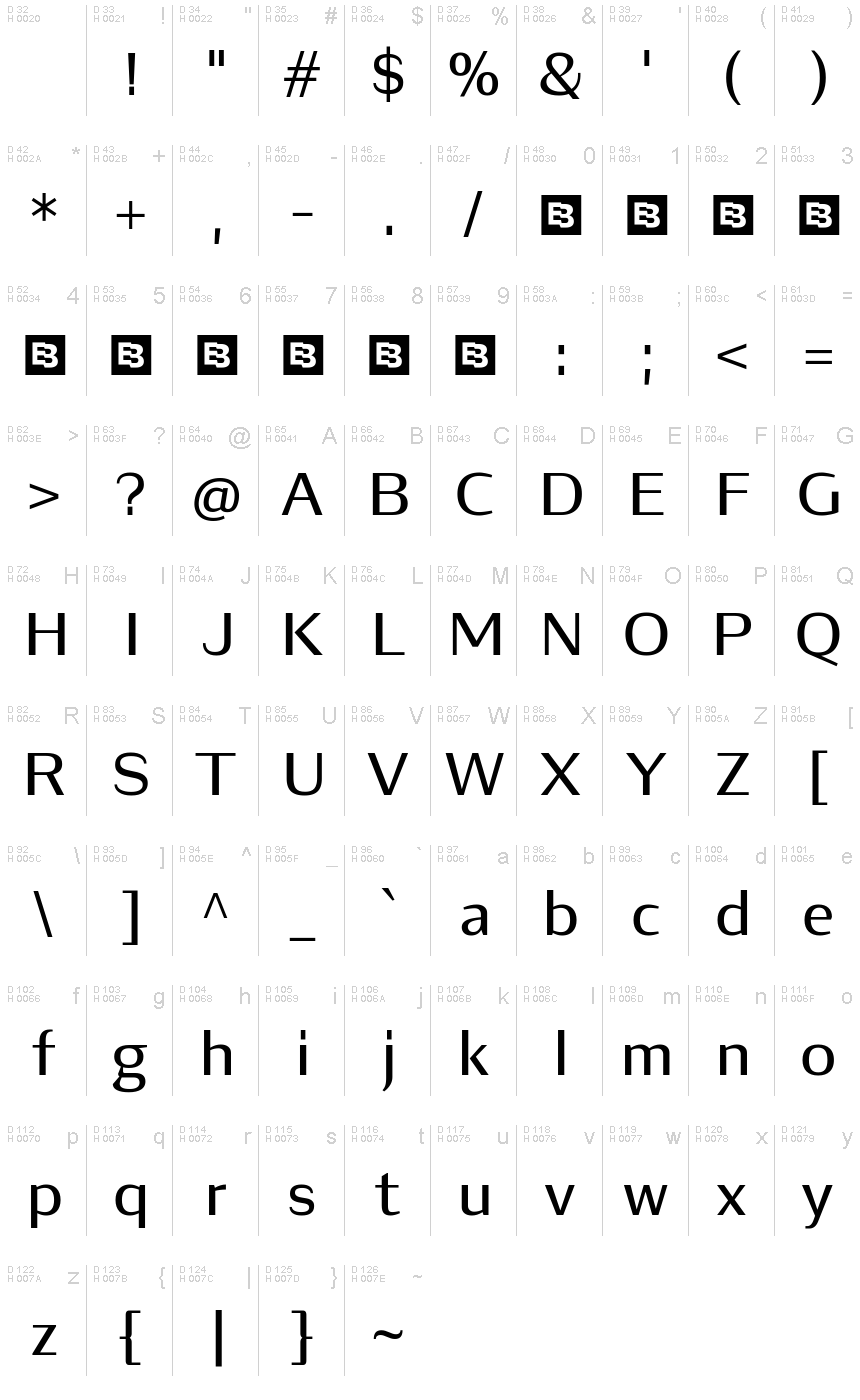
Luvian Trial Medium
The Luvian Medium font exudes a modern, sophisticated elegance. Designed by Eko Bimantara, this sans-serif typeface boasts clean lines, subtle curves, and a balanced aesthetic that commands attention. The letterforms strike a harmonious balance between geometric precision and organic fluidity, creating a visually appealing and versatile typographic solution.
Luvian Medium's versatility shines through its adaptability to diverse design contexts. Its refined, slightly condensed proportions make it an excellent choice for editorial layouts, branding projects, and digital interfaces, where legibility and visual impact are paramount. The font's sturdy yet refined character lends itself seamlessly to both formal and casual applications, from sophisticated corporate communications to eye-catching headlines and impactful visual identities.